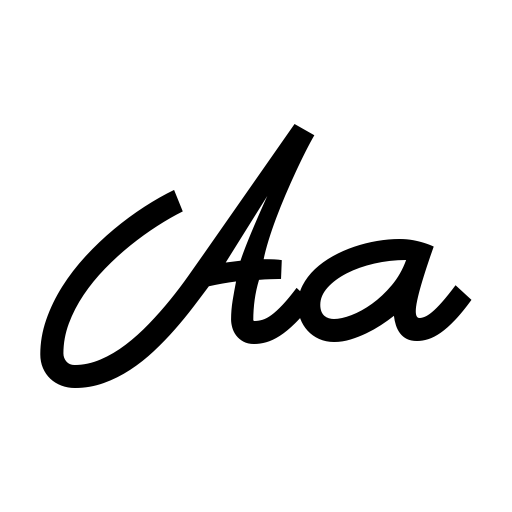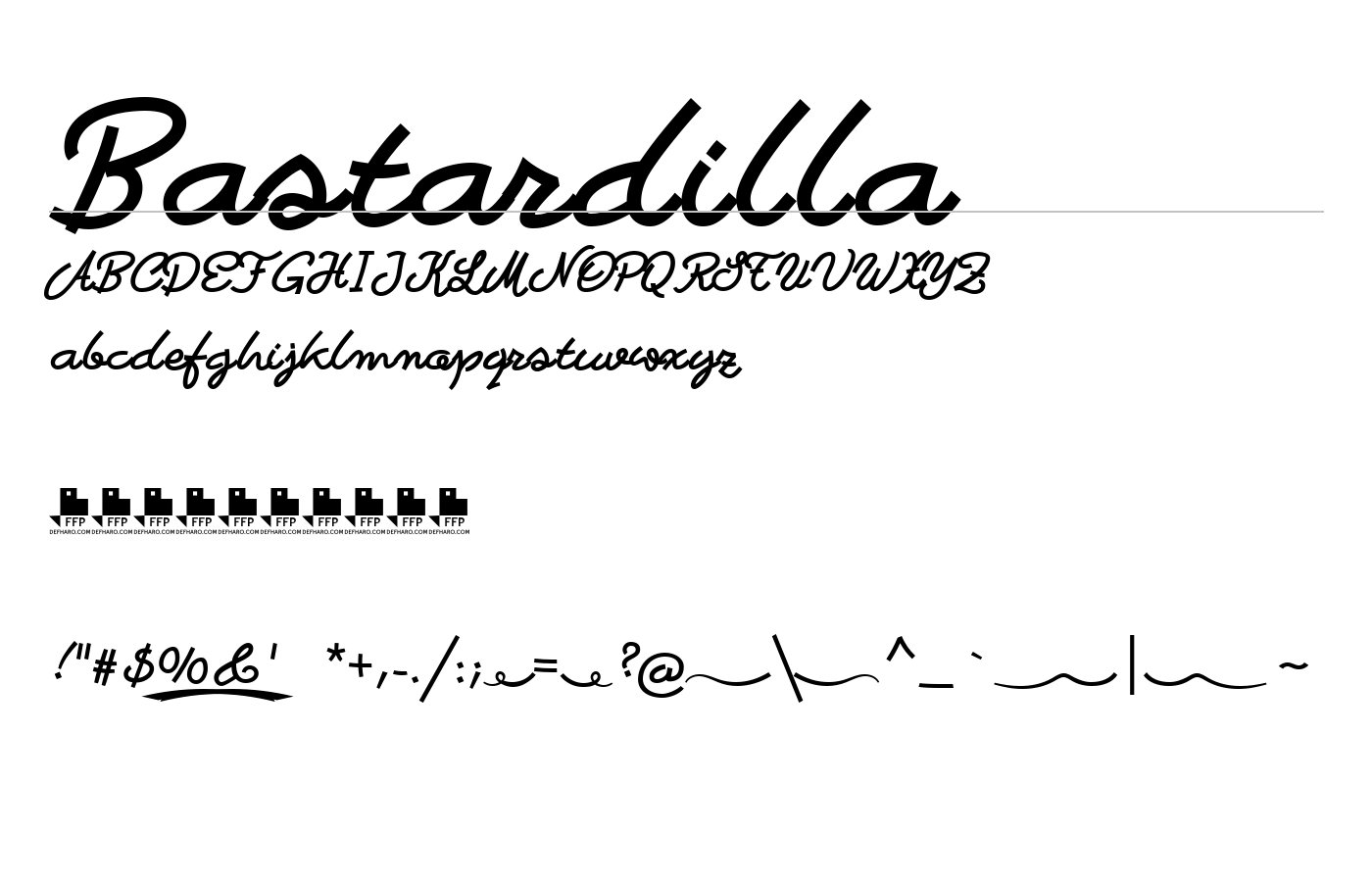
Bastardilla is a lively and elegant script font with a smooth, flowing handwritten style that combines both uppercase and lowercase letters in a fluid, connected manner. Its moderate weight and slightly slanted strokes give it a refined yet approachable feel, making it ideal for creative, feminine, and personal branding projects, as well as invitations, logos, and stylish editorial accents. This font’s playful yet sophisticated character adds a warm, handcrafted touch that works well in both digital and print designs.
Bastardilla Font
About Bastardilla Font